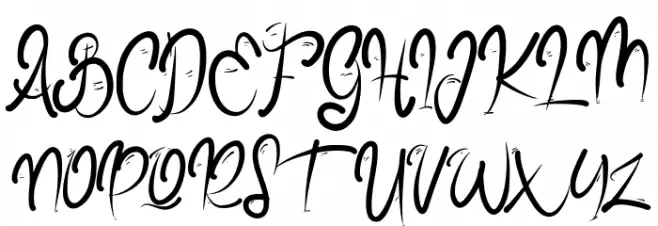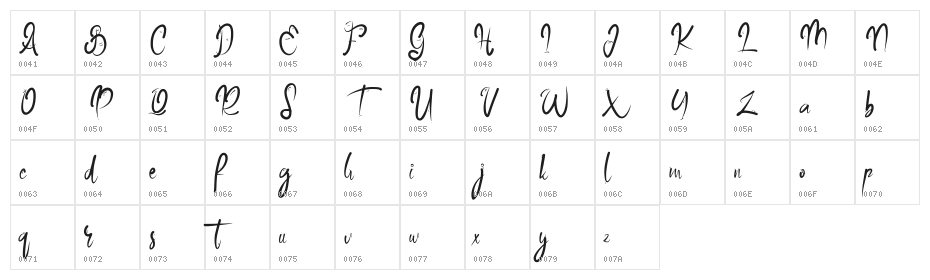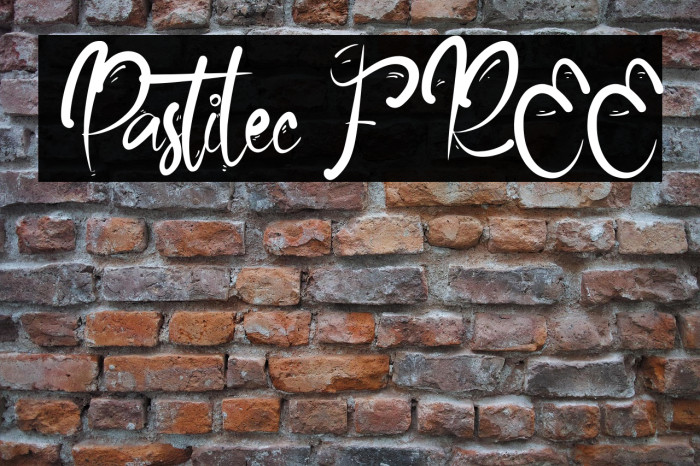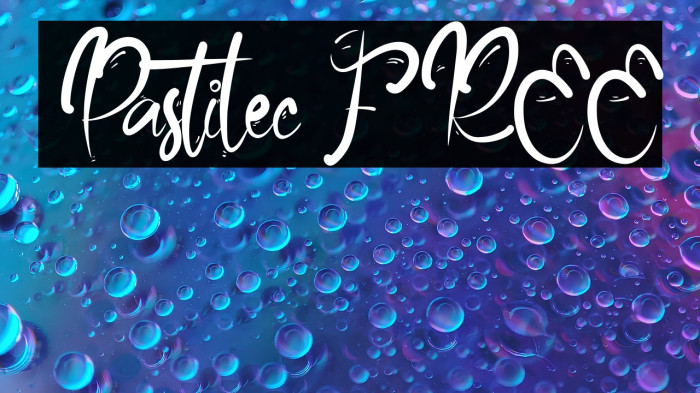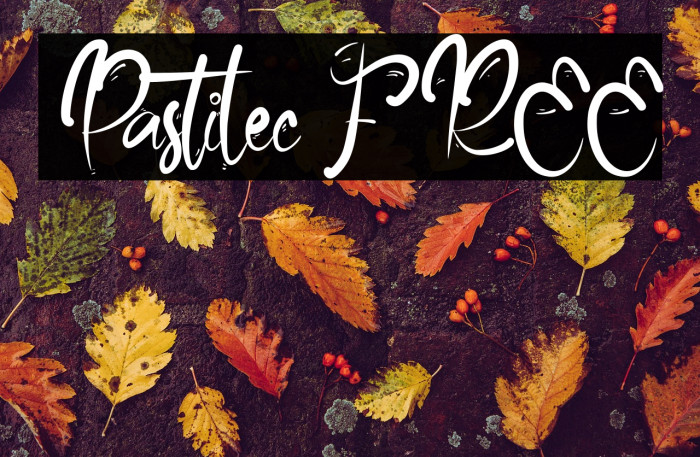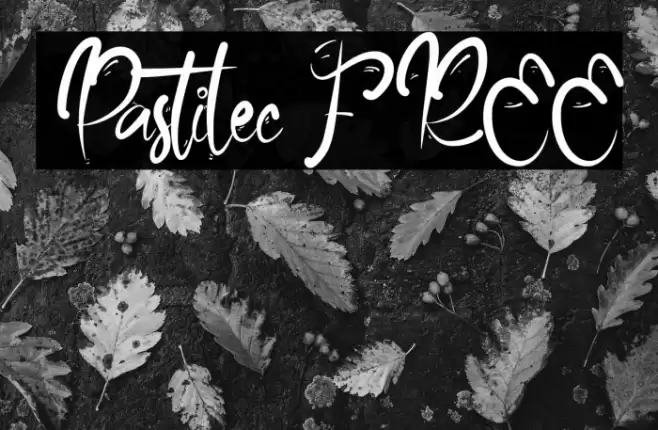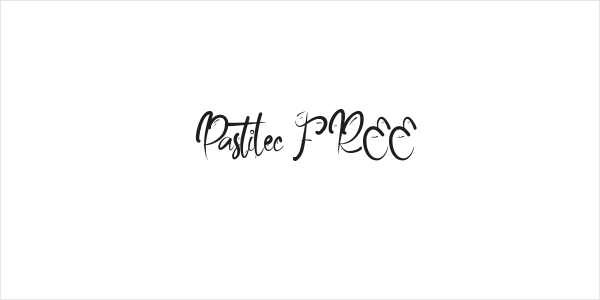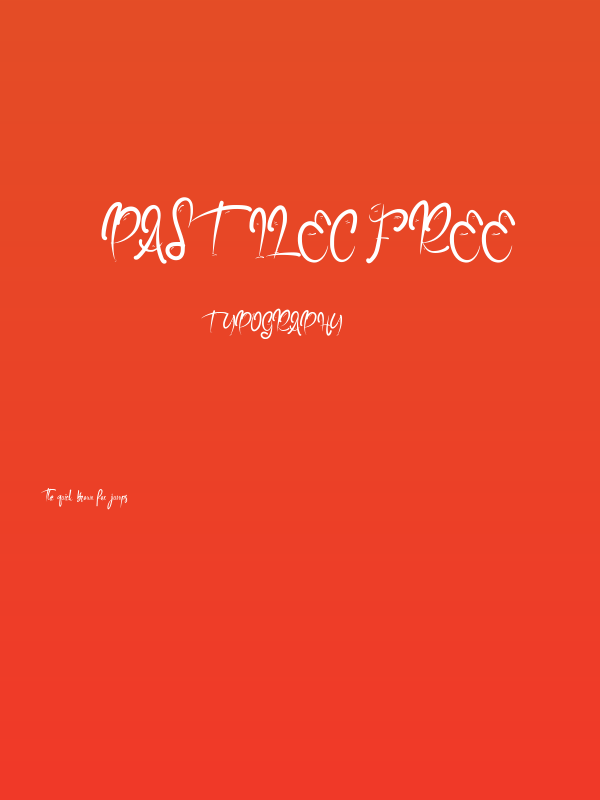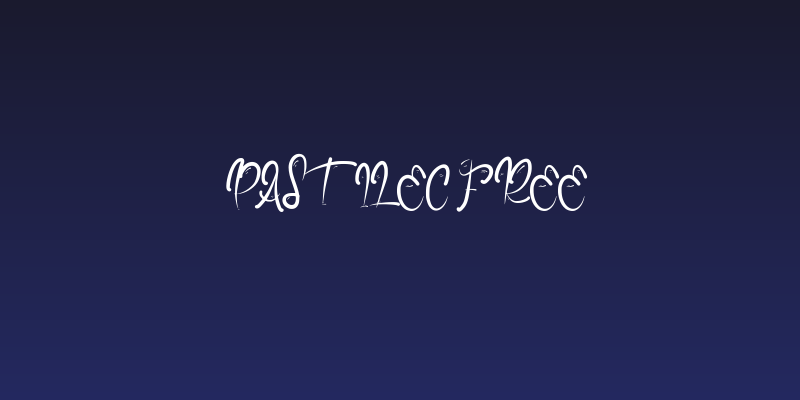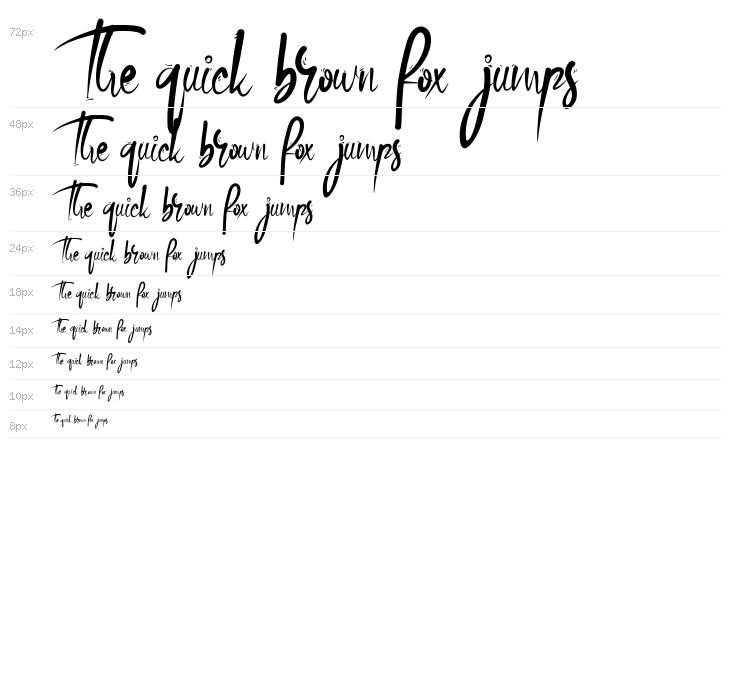
Pastilec FREE Font
Pastilec FREE Description
This font features a dynamic and expressive script style, characterized by its fluid, flowing strokes and artistic flair. The uppercase letters exhibit a sense of elegance and movement, with each character displaying unique flourishes and loops. The lowercase letters maintain a consistent style, complementing the uppercase with their own graceful curves and connections. The numerals and special characters are designed with the same attention to detail, ensuring a cohesive look across all elements. This font's artistic nature makes it ideal for creative projects where a personal touch is desired.
| Proposed Projects | Ideal for wedding invitations, greeting cards, branding, and artistic projects. |